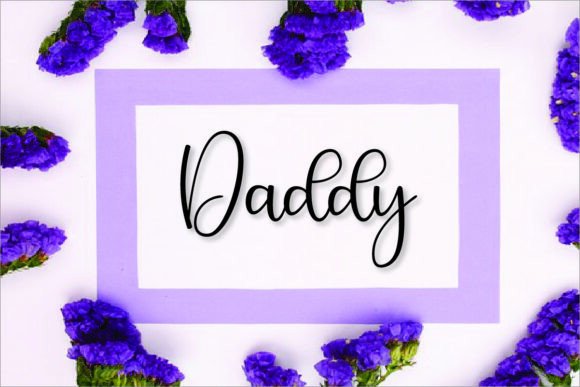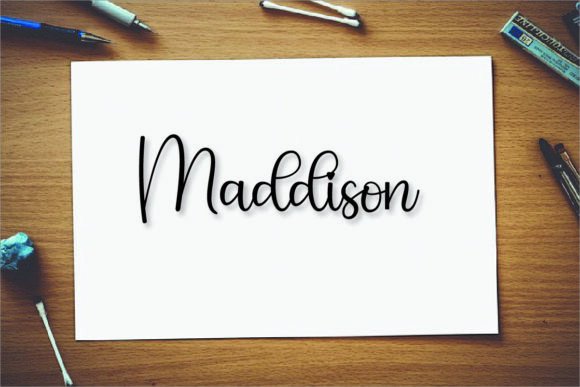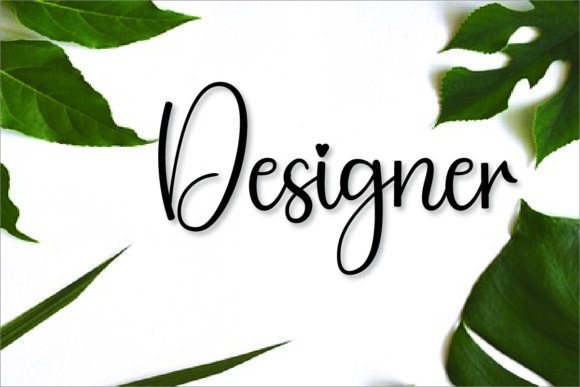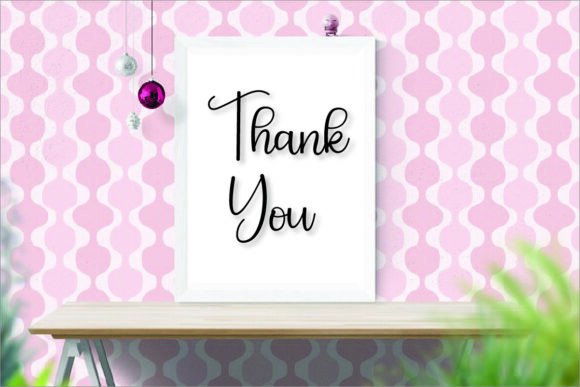
Introducing Handwritting Font: Elevate Your Designs with Elegance and Class
In the world of typography, few fonts manage to capture the essence of elegance and sophistication as effortlessly as Handwritting Font. This trendy handwritten font is inspired by timeless classic calligraphy, bringing a contemporary atmosphere and impeccable form to your design projects. Whether you’re a designer, crafter, or simply someone who appreciates the art of beautiful writing, Handwritting Font is sure to become your go-to choice for adding a touch of refinement to your creations.
The Inspiration Behind Handwritting Font
Handwritting Font draws its inspiration from the rich heritage of classic calligraphy, where the art of beautiful handwriting was perfected over centuries. The font’s creators aimed to capture the essence of this timeless art form, infusing it with a modern twist that makes it perfect for contemporary design projects. The result is a font that exudes elegance, sophistication, and a deep sense of tradition.
Key Features of Handwritting Font
So, what makes Handwritting Font so special? Here are just a few of its key features:
- Contemporary atmosphere: Despite its classic inspiration, Handwritting Font has a distinctly modern feel that makes it perfect for designs that require a fresh, contemporary look.
- Impeccable form: The font’s precise, flowing lines and carefully crafted letterforms ensure that it always looks polished and refined, even at smaller sizes.
- Elegance and class: Handwritting Font is designed to add a touch of sophistication to any design project, making it perfect for applications where a high-end look is required.
- Versatility: Whether you’re designing a logo, creating a brochure, or crafting a social media graphic, Handwritting Font is versatile enough to adapt to any design brief.
Uses for Handwritting Font
Handwritting Font is an incredibly versatile typeface that can be used in a wide range of design applications. Here are just a few ideas to get you started:
- Logos and branding: Add a touch of elegance to your logo or brand identity with Handwritting Font’s sophisticated, high-end look.
- Print design: Use Handwritting Font to create stunning brochures, flyers, and posters that demand attention.
- Digital design: From social media graphics to website headers, Handwritting Font is perfect for creating digital content that stands out from the crowd.
- Crafting and DIY: Whether you’re creating handmade cards, scrapbooking, or working on other craft projects, Handwritting Font is a great choice for adding a personal touch.
Tips for Using Handwritting Font
To get the most out of Handwritting Font, here are a few tips to keep in mind:
- Pair it with contrasting fonts: Combine Handwritting Font with a bold, sans-serif font to create visual interest and add depth to your design.
- Experiment with colors: Handwritting Font looks great in a range of colors, from rich jewel tones to elegant metallics.
- Pay attention to spacing: Make sure to leave enough space between lines and around text elements to allow Handwritting Font’s elegant lines to breathe.